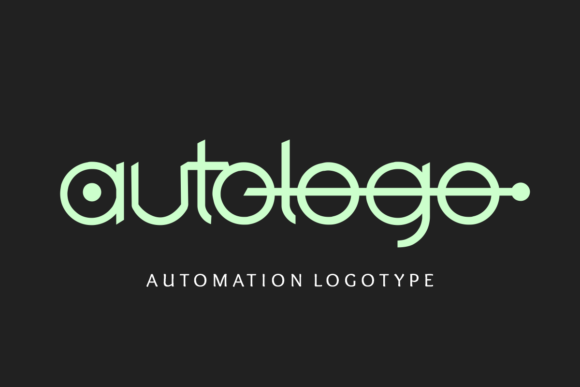
The Autologo Font: A Designer’s New Best Friend?
I’ll never forget the time I was working on a branding project for a trendy new cafe. I had the logo concept nailed, but I just couldn’t find the right font to bring it all together. The client wanted something fun, modern, and eye-catching, but also professional and legible. I spent hours scouring font websites and trying out different combinations, but nothing seemed quite right. That’s when I stumbled upon the Autologo font, and let me tell you, it was love at first sight! 💕
So, what makes Autologo so special? Here are a few things I love about this font:
• ✨ Unique and quirky design that’s perfect for creative projects
• ✅ Highly legible, even at smaller sizes
• 🔥 Great for headlines, titles, and short paragraphs of text
• 🎨 Works well with a variety of design styles, from minimalist to ornate
Of course, no font is perfect, and Autologo does have a few small quirks:
• 🤔 Some users may find the rounded edges a bit too playful for certain projects
• ⚠️ Limited support for non-English characters (but this is being worked on!)
The Story Behind Autologo
So, where did Autologo come from? According to the designer, Autologo was inspired by the classic signage of the 1950s and 60s. The goal was to create a font that was both nostalgic and modern, with a unique personality that would stand out in any design.
Q: Is Autologo suitable for body text? A: While Autologo is highly legible, it’s best suited for headlines, titles, and short paragraphs of text. For longer body text, you may want to choose a different font.